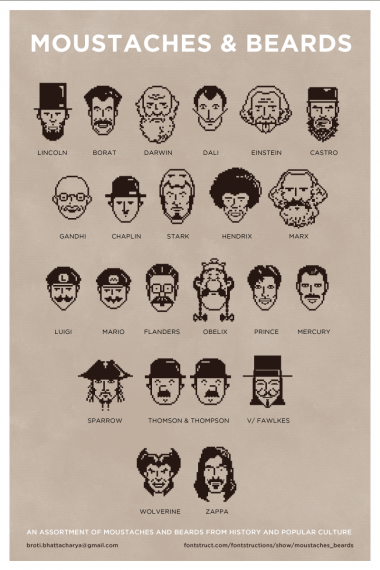
Thats is funny and artistic! Good job!
wahaa! The last one is Captain Jack Sparrow.. rwwrrwrwr!!
I don't like Hitler. You must change it for Char
les Chaplin "Charlot"? It's the same moustach, but he no kills 6 millions jews. PLEASE!
I hope that is better elmoyenique. Thanks a lot. :)
Thaaanks, pal. And I'm grateful too with you for take here one spanish moustache: the brave Salvador Dalí (I'm spanish too). Good luck!
Great artwork. A few other suggestions - Einstein, Jesus Christ, Che Guevara, Groucho (Marx Brothers), Ghandi, Yosemite Sam, Stalin, Clark Gable, Borat, My Name is Earl (Jason Lee), Freddie Mercury, Magnum, Hulk Hogan, Ned Flanders (Simpsons), Guy Fawlkes, Magnum P.I., BEARDS - Lincoln, Osama Bin Laden, Wolverine,
oh and John Lennon and Father Christmas.
and Khafre (Egyptian 'Sphinx' King), Shakespeare, Henry VIII, Fidel Castro and ZZ Top.
and The Colonel (KFC). :-)
Sigmund Freud as well.
Haha! Thanks a lot!
Haha, is that Ned Flanders on the F? Great font! 10/10
Yes it is. Thanks CMunk!
really nice work!!!!
Broti, I love this! :)
It comes better each day!
Great work
LOL... They all have serious faces, including Ned Flanders and Mario. That's hilarious.
Could have made Charlie chaplin face little thin, with little more prominent jawbone
Glad you did my suggestions. Abe Lincoln (A), Borat (B), Ned Flanders(N), Guy Fawkes (V)
You got to do Freddie Mercury (Queen) for Q.
I really like Prince (P) as well. Who's the Z character? You could do Zorro for Z as well, or ZZTop (The Rock Band).
Any way this is my Favourite illucomp entry. Well done.
Thanks! On Z, its frank Zappa. Used him for his iconic soul patch. Is the competition still on? Can I still make changes?
Try it.
Awesomeness!
The sample looks great. There is a spelling error in it though – "popular" is spelled "polpular".
I'm with anexasajoop.
And "FALNDERS" too. Don't worry, the font is genial!
Haha. Sorry guys, made the sample image in a hurry. Will fix it soon. The ghost of spelling errors still haunt me. :)Thanks.
Second update, without spelling errors,
Congratulations! FontStruct Staff have deemed your FontStruction worthy of special mention. “Moustaches & Beards” is now a Top Pick.
Thanks meek! Looking to add more characters soon.
This is awesome!
suggestions:
Unabomber
Tesla, The beast
Hussein, Hank McCoy,
Xerxes (not the 300 version, some pics show him with hair to the nose and long beard)
and why not king Leonidas?
good luck finding Y, mwahahaha
youll probably need asian historical figures like Yongzheng emperor, there's also X's
But these guys hardly qualify as prominent hist. figs
broti, what is C. Chaplin doing on H-slot?
switching some slots to fix H:
new = person (previous)
C= Chaplin (H)
D= Darwin (C)
S= S. Dali (D)
J= Jack Sparrow (S)
H= Hendrix (J)
or maybe drop Dali
S= Sparrow
J= hendrix (cliff would the hard to caticature)
h= hernan cortes
it would be doubly fun if you followed a pattern, like first or last name (or at least the most emphatic word), so we could actually read this font, hehee
you almost use 1st name, but i tried fussing with the current list..
PS: humm i think i got it: Chow Yun-fat
Richard Stallman
Lol this is great.
This is awesome!
suggestion: zz top for "Z" instead